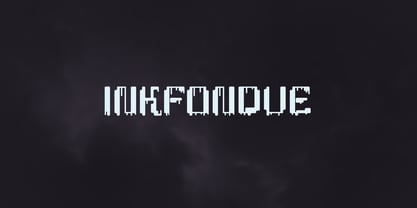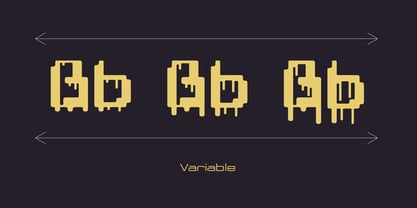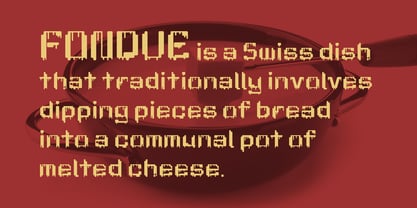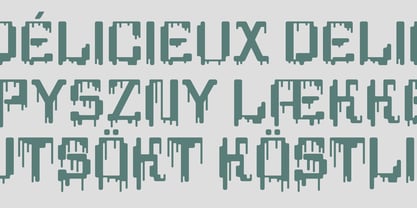
Inkfondue
by Outerend
The Inkfondue Font Family was designed by Taka Ikari and published by Outerend. Inkfondue contains 2 styles and family package options.
"Inkfondue" is a unique experimental display font with a hint of digital flair. Like cheese fondue, certain elements stretch and melt like gooey cheese, adding a playful, fluid energy to your designs.
Designers: Taka Ikari
Publisher: Outerend
Foundry: Outerend